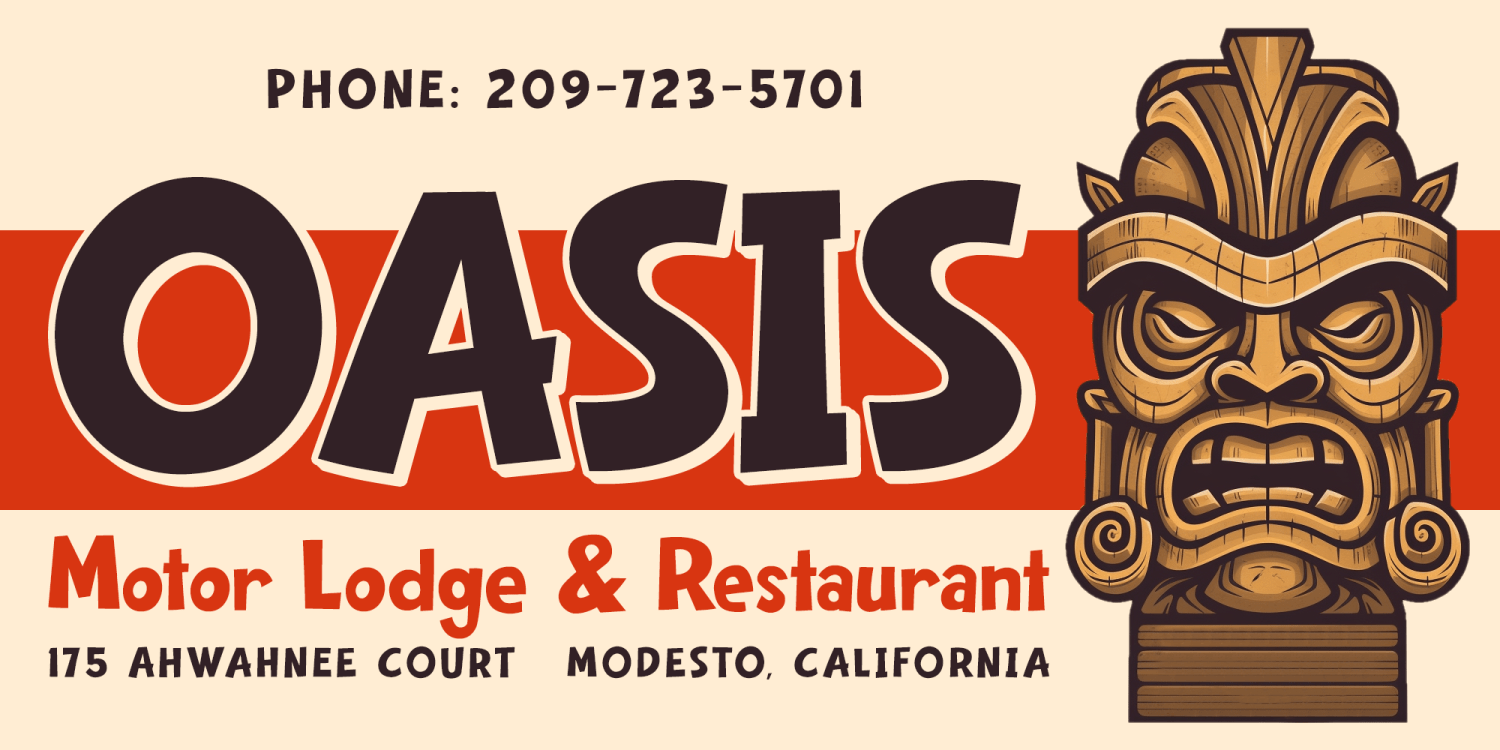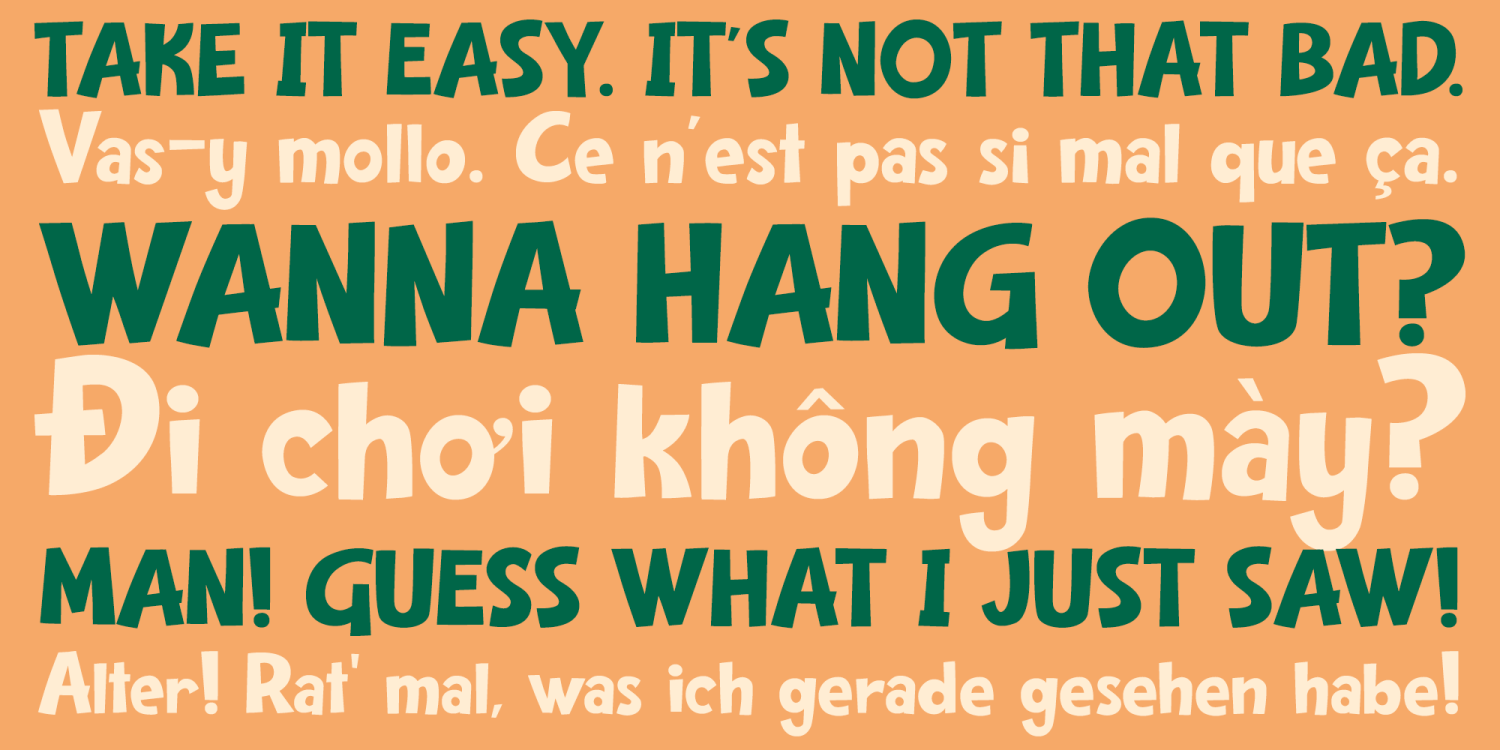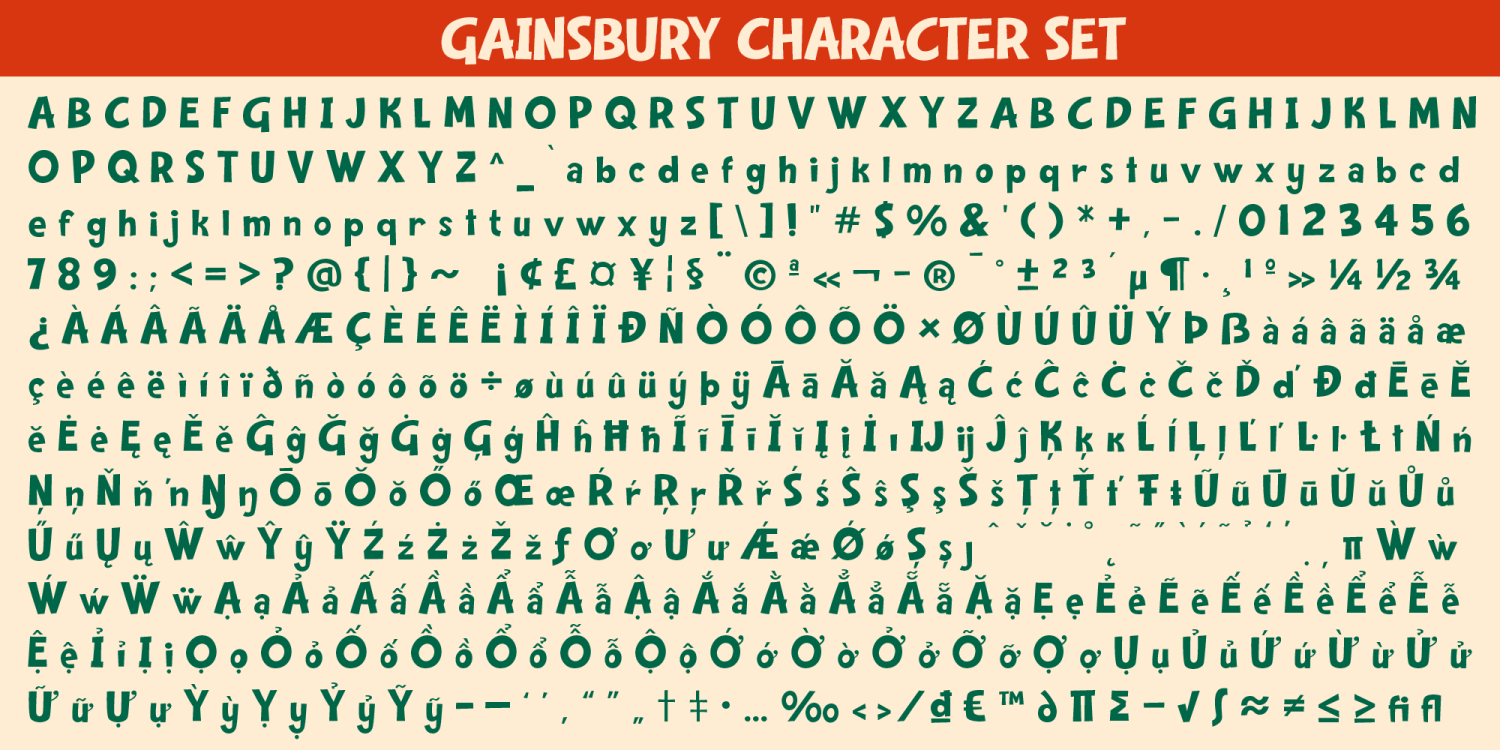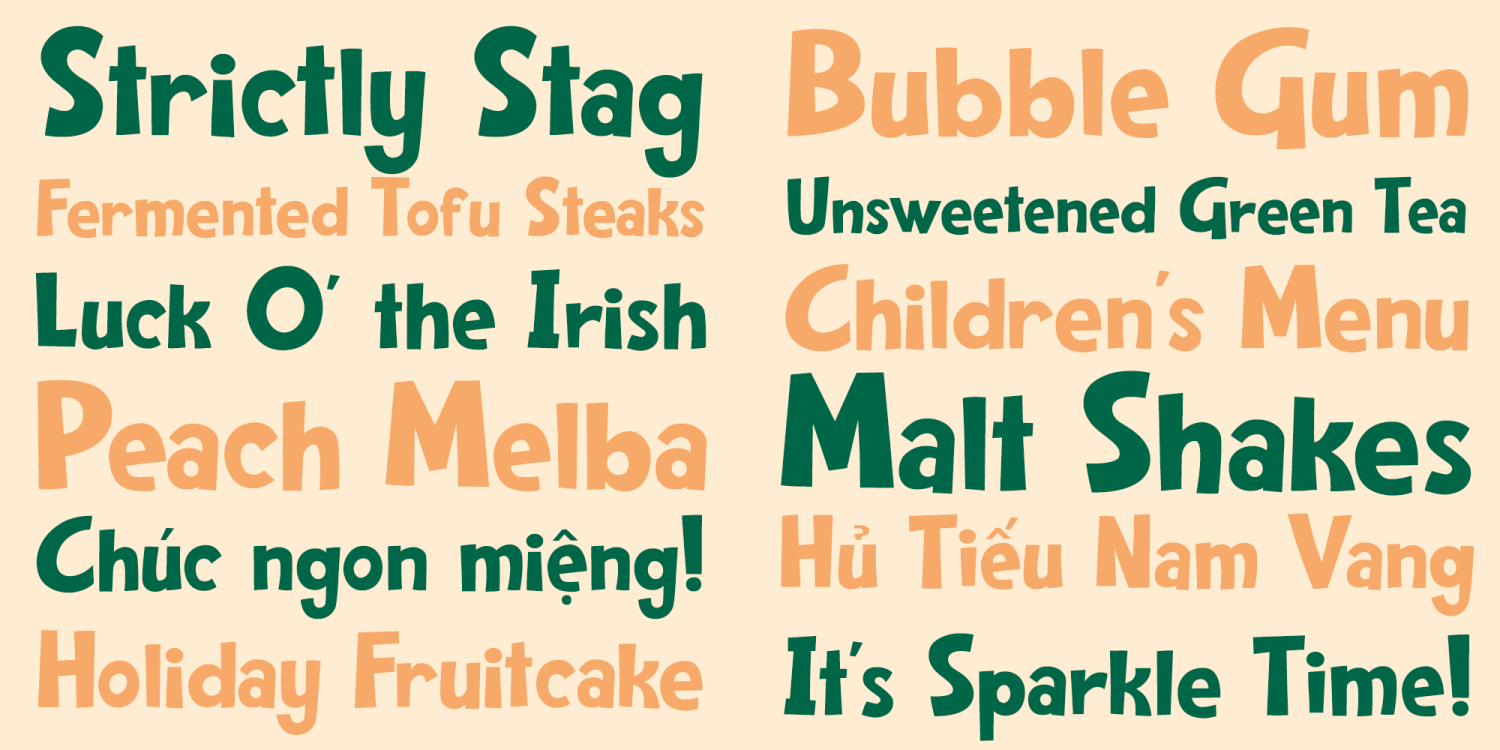
About Gainsbury
Gainsbury! A fun, lighthearted font for all of your laid back and leisurely pursuits. It’s groovy, it’s gregarious, it’s Gainsbury! (Gainsbury contains an extended Latin character set with added Vietnamese support.)